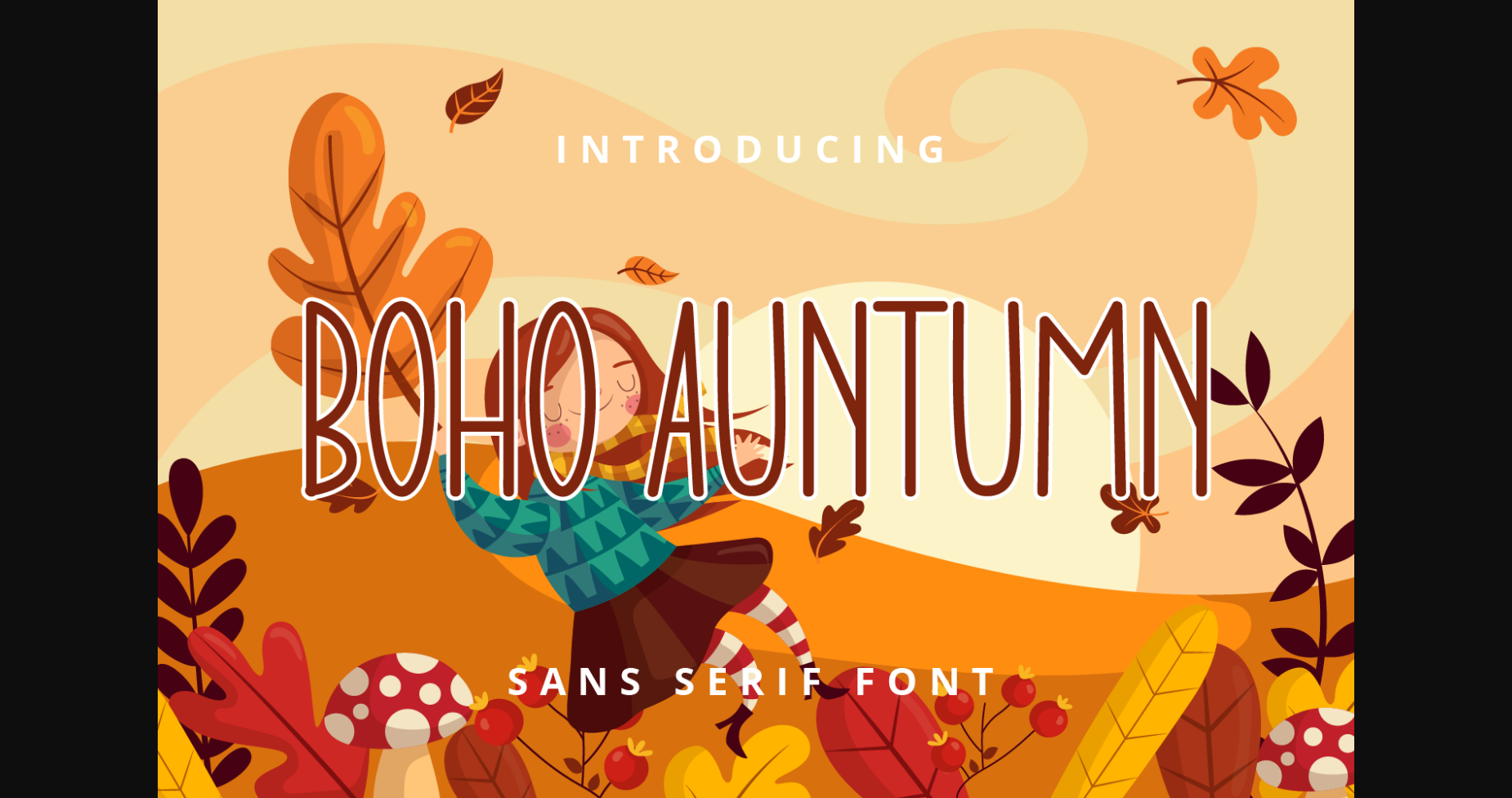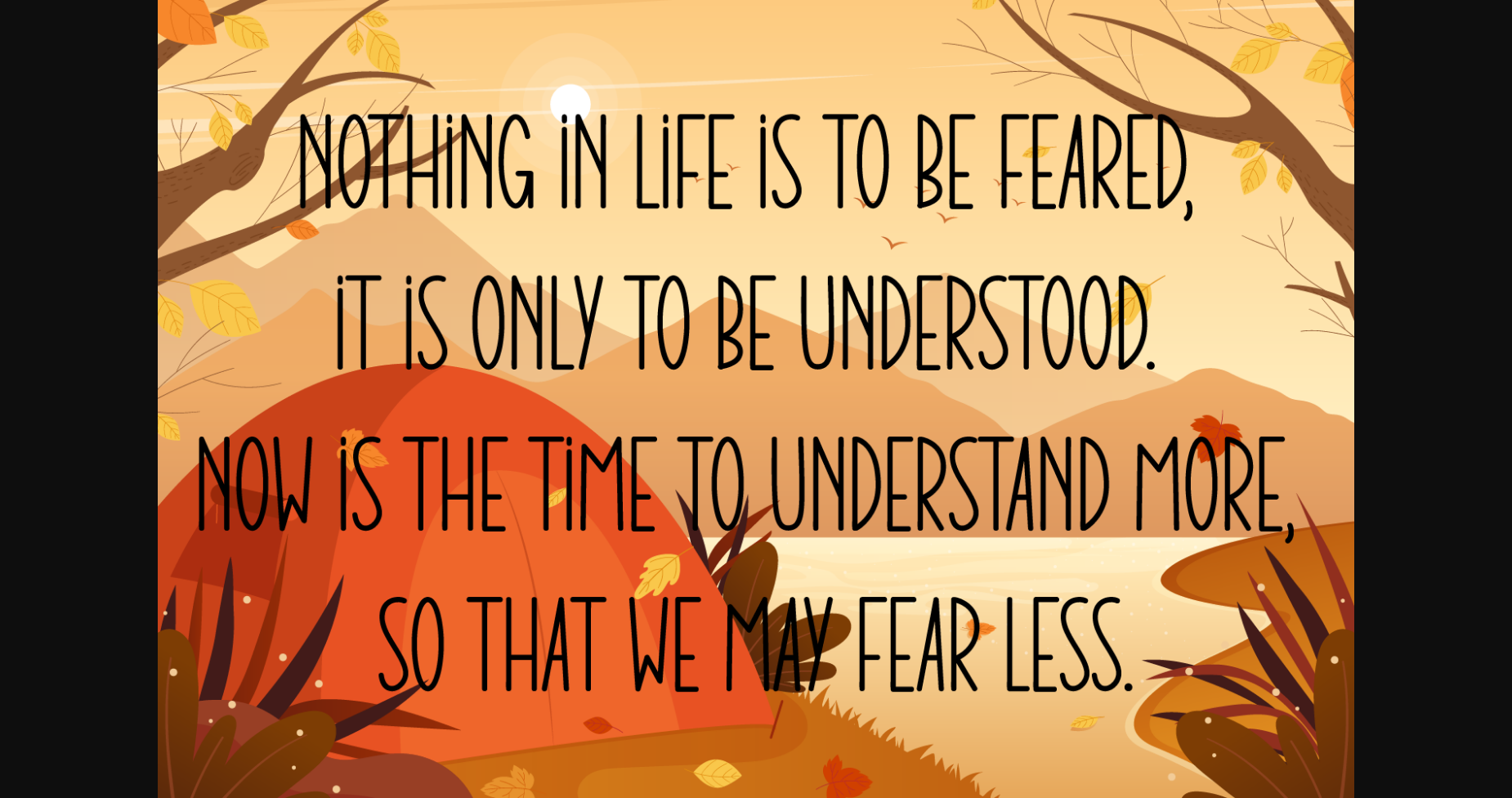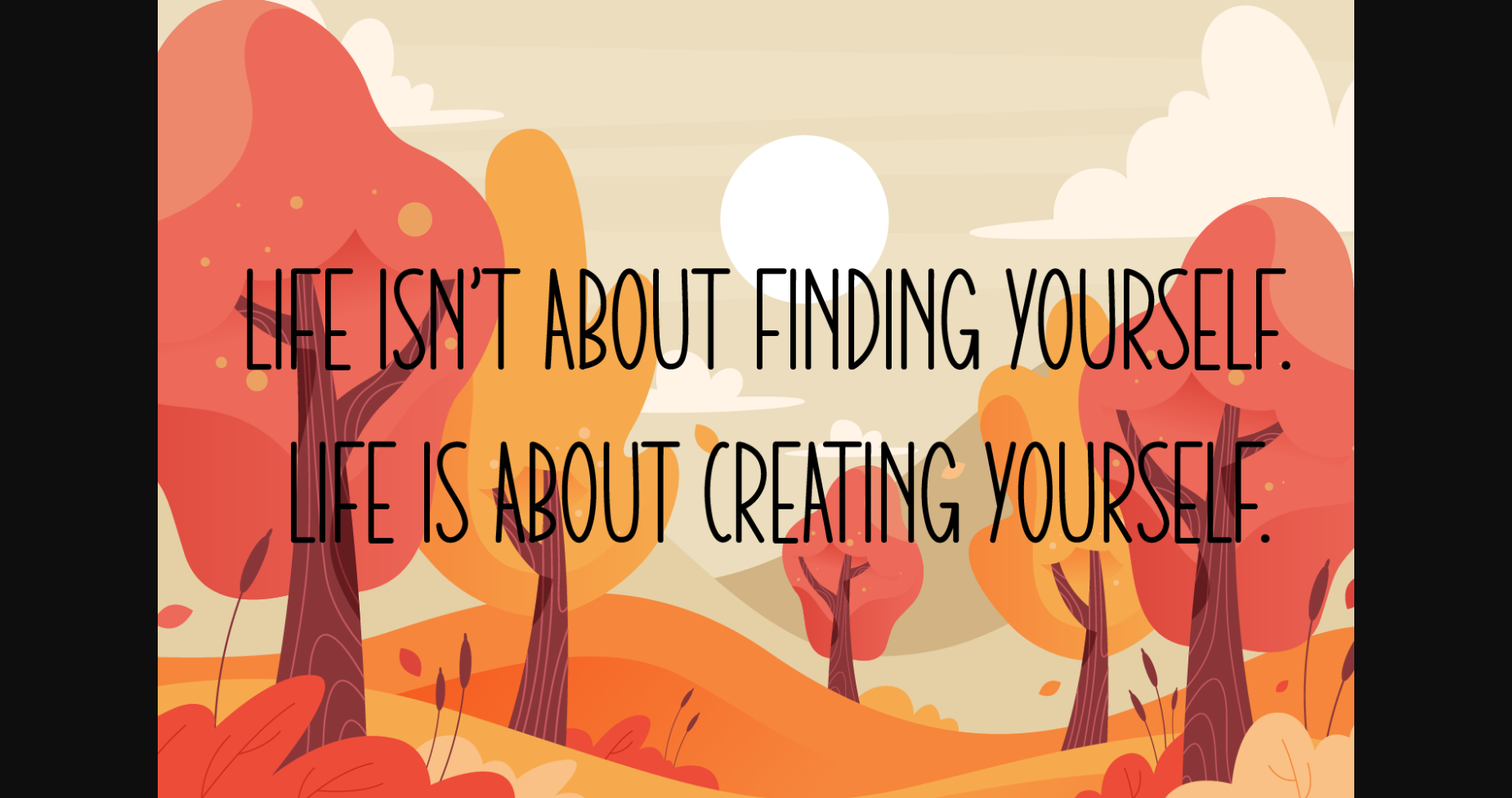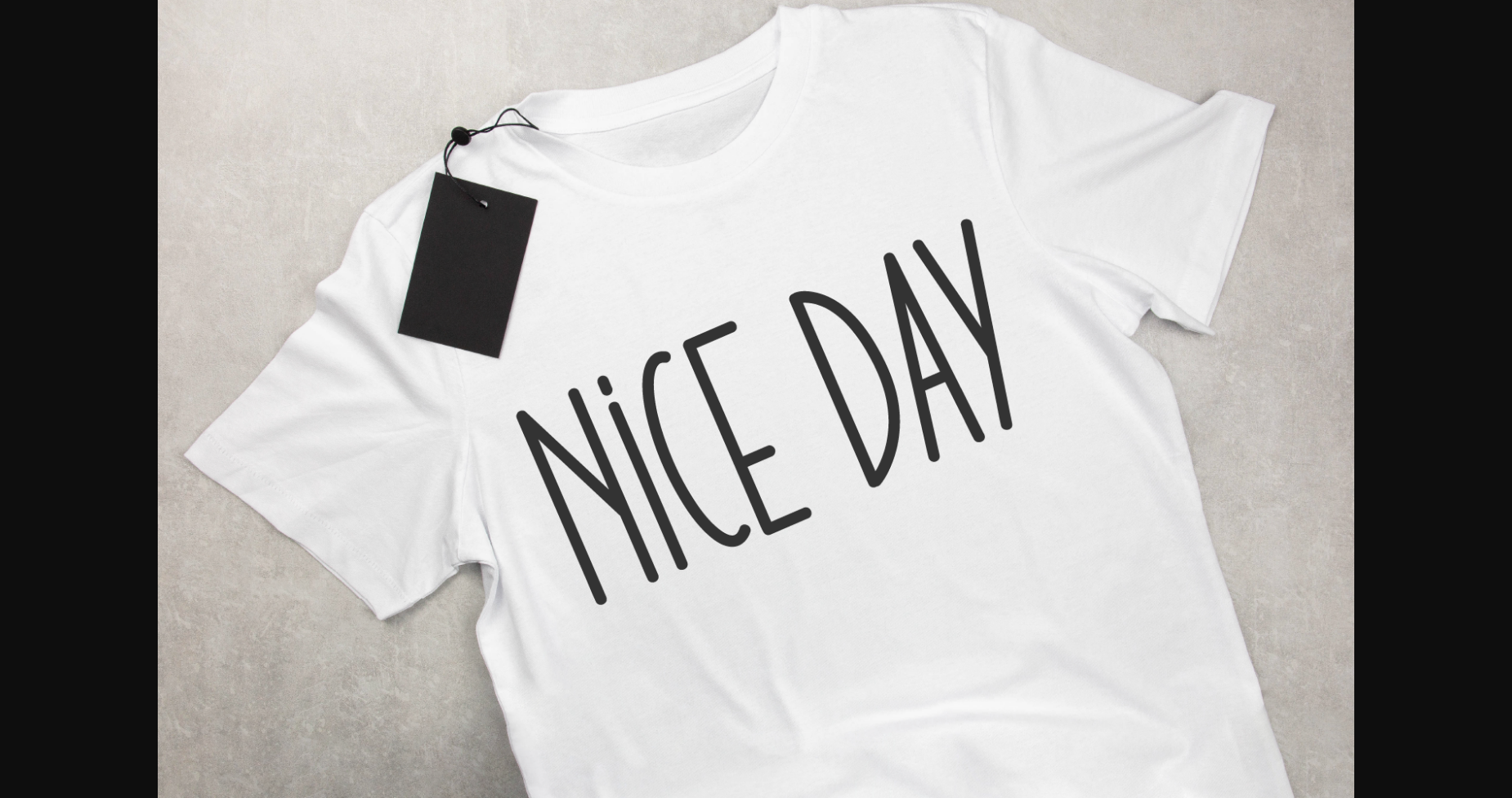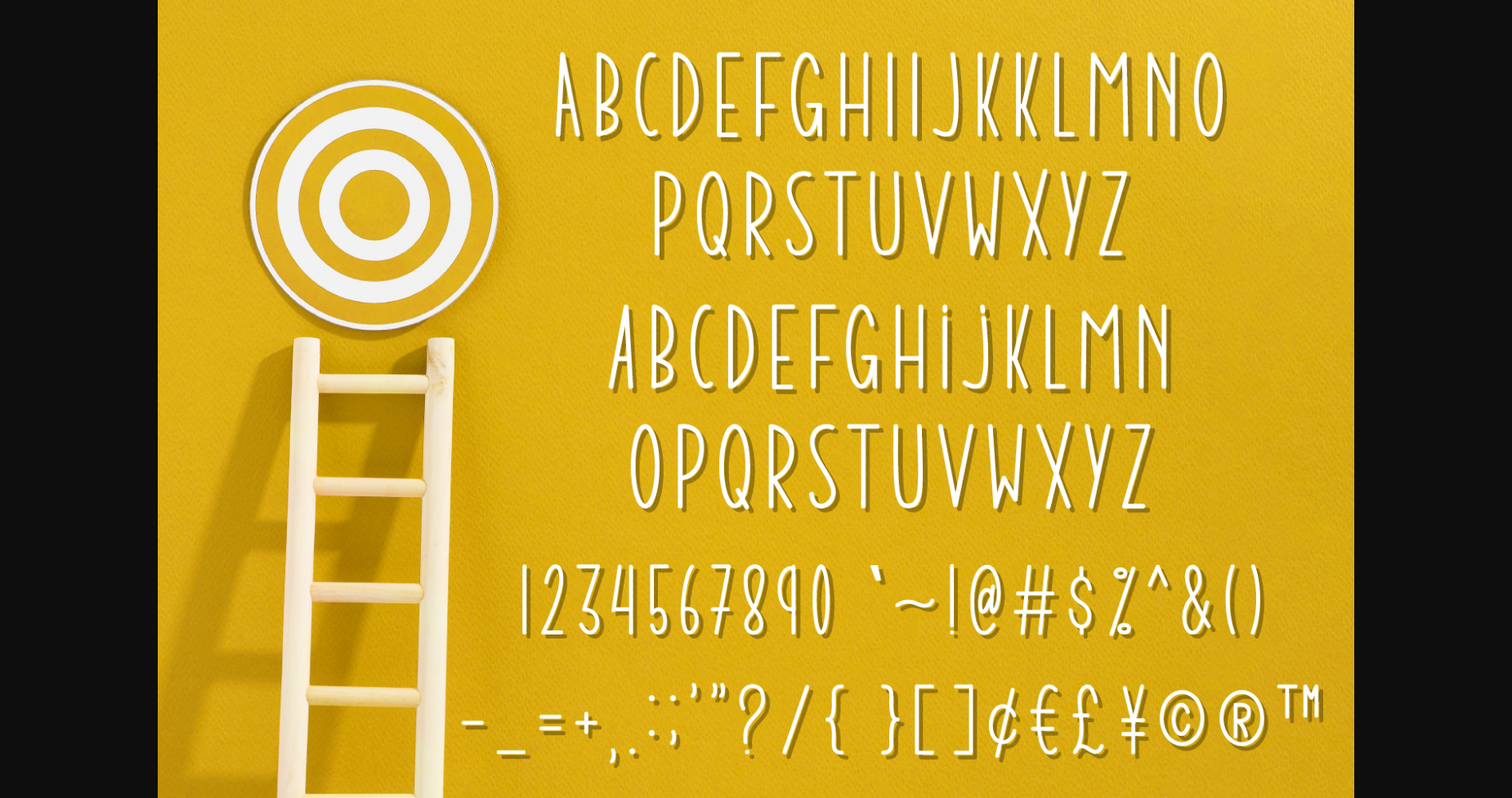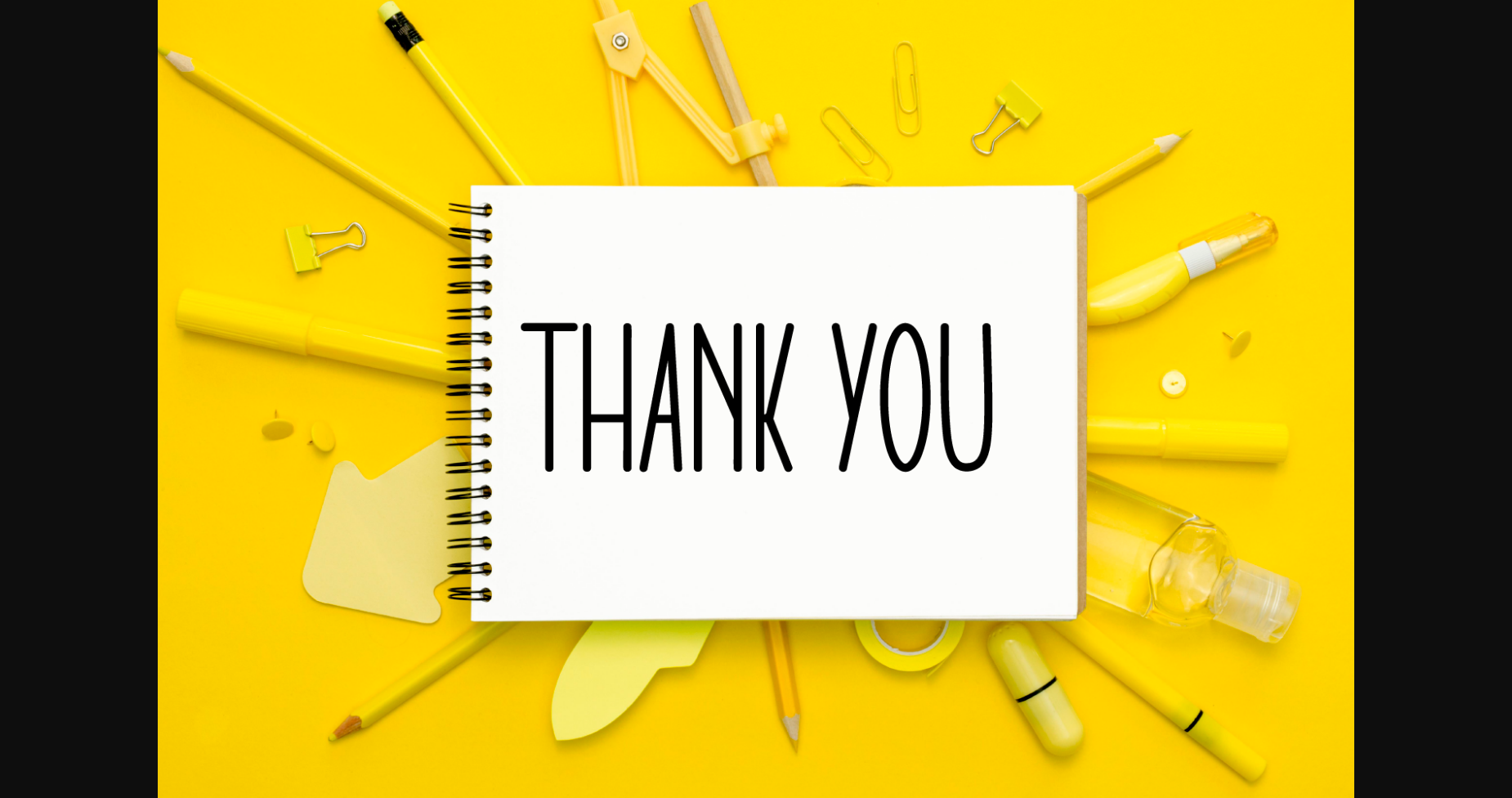
HomeSans Serif FontsBoho Auntumn Font Sans Serif Fonts Boho Auntumn Font FacebookXPinterestWhatsApp 1 of 8 ... Boho Auntumn Font Poster 2... Boho Auntumn Font Poster 3... Boho Auntumn Font Poster 4... Boho Auntumn Font Poster 5... Boho Auntumn Font Poster 6... Boho Auntumn Font Poster 7... Boho Auntumn Font Poster 8... About Boho Auntumn Font Boho Auntumn is a cute, simple and clean sans serif font. No matter the topic, this font will be an incredible asset to your fonts’ library, as it has the potential to elevate any creation! DOWNLOAD NOW People also explored Novyana Font Classicplus Font Astone Dejavu Font Phanthom Twilight Font Sandwell Font Savanna Font Modern Summer Font Santiago Font 309 0 TagsBoho Auntumn Font Previous articleSwift FontNext articleValo Font LEAVE A REPLY Cancel reply Comment: Please enter your comment! Name:* Please enter your name here Email:* You have entered an incorrect email address! Please enter your email address here Website: Save my name, email, and website in this browser for the next time I comment. Personal Use Free Lemon Milk Font Personal Use Free Read more about this font Lightning Script Personal Use Free Read more about this font Homelands Personal Use Free Read more about this font Beloved Script Personal Use Free Read more about this font BLOG How to Cut Any Font on Cricut: Convert a Font to SVG (Free) Turn any font into a clean SVG so it cuts crisp on Cricut - a quick 3-step workflow using a free font-to-SVG tool. The 10 Best Handwriting Fonts to Add Personality to Your Designs Free vs Paid Fonts: Why Investing in Premium Fonts Is Worth It Top 7 Google Fonts Alternatives for Faster and Privacy-Friendly Web Design (2025)